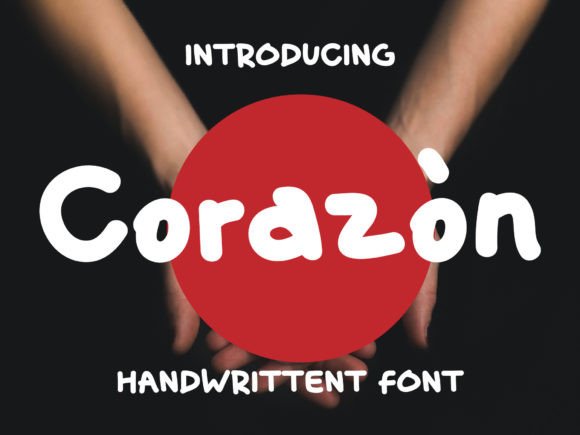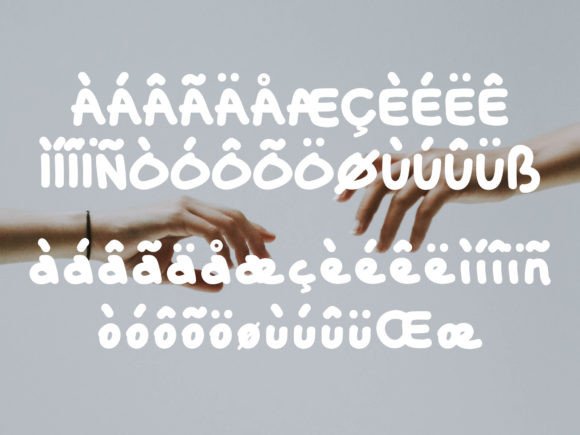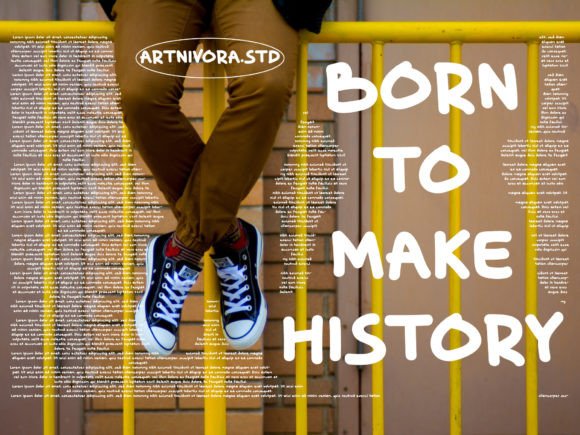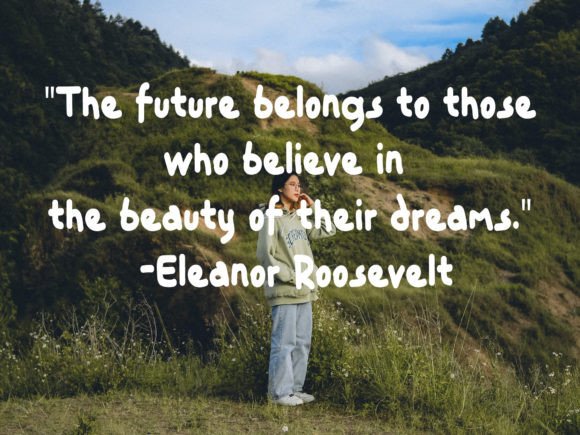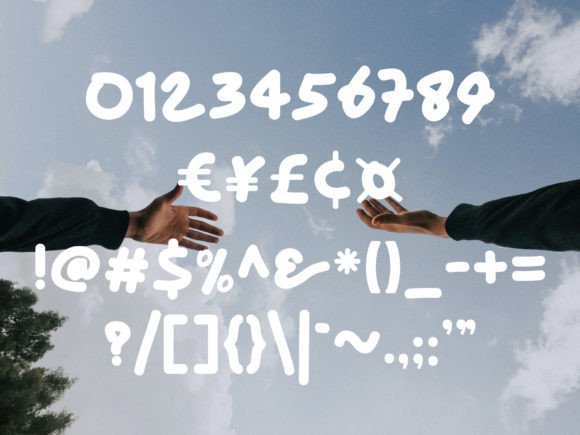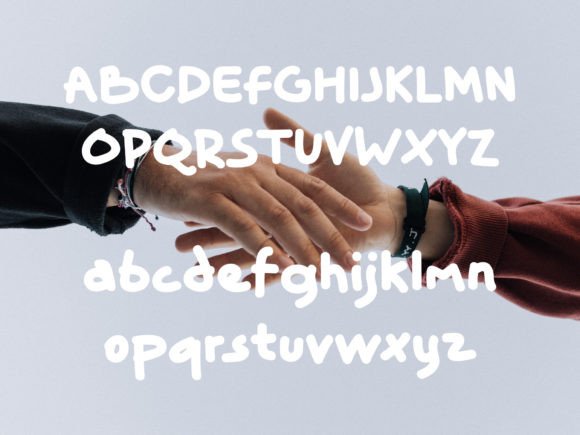
Corazon
About Corazon
Corazon is a playful handwritten display font with a cheerful personality. Use it to create unique t-shirt designs, nursery decorations, quirky stickers, digital designs, cards, and many more.